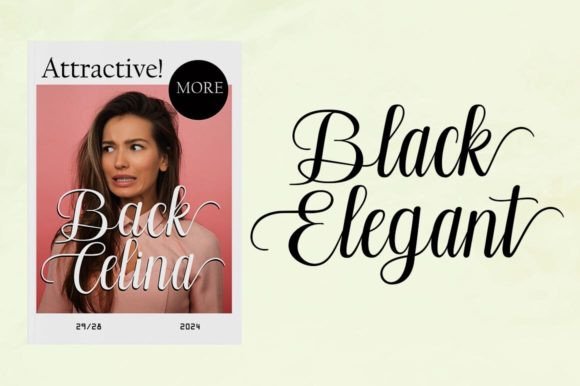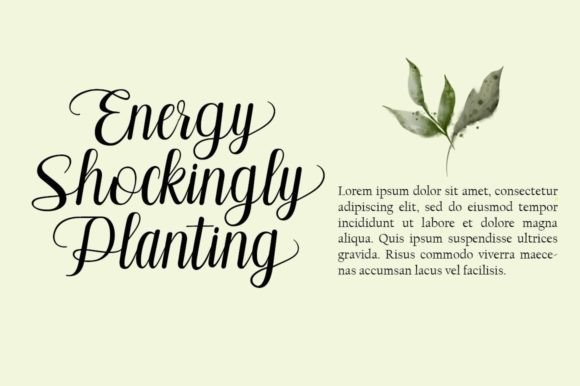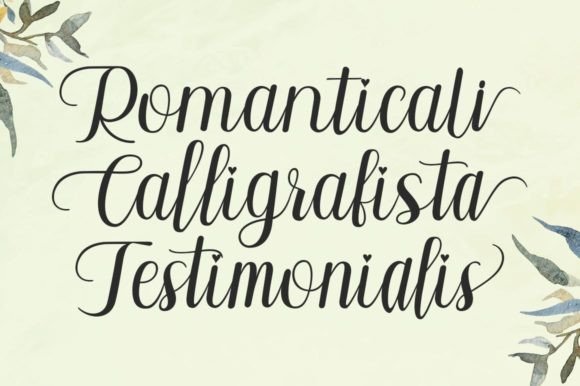
Introduction to Pilletta Font
As a designer, there’s nothing quite like the thrill of bringing a creative project to life. You’ve spent hours brainstorming, sketching, and perfecting every detail, and finally, it’s time to add the finishing touches. But sometimes, no matter how hard you try, your design just needs that special something to make it truly stand out. That’s where the Pilletta Font comes in – a high-quality, elegant script font that adds a touch of sophistication to any design.
Whether you’re creating a wedding invitation, a thank you card, or a logo, the Pilletta Font is the perfect design resource to elevate your work. Its beautiful, handwritten style is sure to impress, and with a free download available, it’s easy to get started on your next creative project. Plus, with a transparent background, you can rest assured that your design will look its best, no matter what background or layout you choose.
Pilletta Font
- High-quality font with a unique, creative design suitable for various projects
- Perfect for creative projects, such as logos, branding, and typography-based art, due to its distinctive and modern style
- Designed to be a versatile design resource, suitable for various industries, including fashion, entertainment, and technology
- Includes a range of font sizes and styles, from bold and italic to regular and condensed, for added flexibility in design
Honest Review: Pilletta Font
I recently stumbled upon the Pilletta Font and I must say, it’s been a great addition to my design resources. The high quality of the font is evident in its smooth lines and elegant curves. It’s perfect for any creative project that requires a touch of sophistication.
- ⚠️ The font may not be suitable for all types of projects, especially those that require a bold or dramatic look.
Overall, I’m impressed with the Pilletta Font and would definitely recommend it to fellow designers. It’s a solid choice for any creative project that requires a high-quality, elegant font. With a little creativity, you can achieve some amazing results with this design resource.
Pilletta Font
The Pilletta Font is a high-quality design resource perfect for creative projects that require a unique and stylish touch. This free download offers a transparent background, making it easy to integrate into various design platforms.
Tips for Getting the Most Out of Pilletta Font
To get the most out of the Pilletta Font, consider the following tips:
Use it to create eye-catching headlines and titles.
Experiment with different font sizes and colors to create visual interest.
Combine the Pilletta Font with other design elements to create a cohesive look.
The Pilletta Font is perfect for:
Branding and marketing materials.
Graphic design projects.
Web design and development.